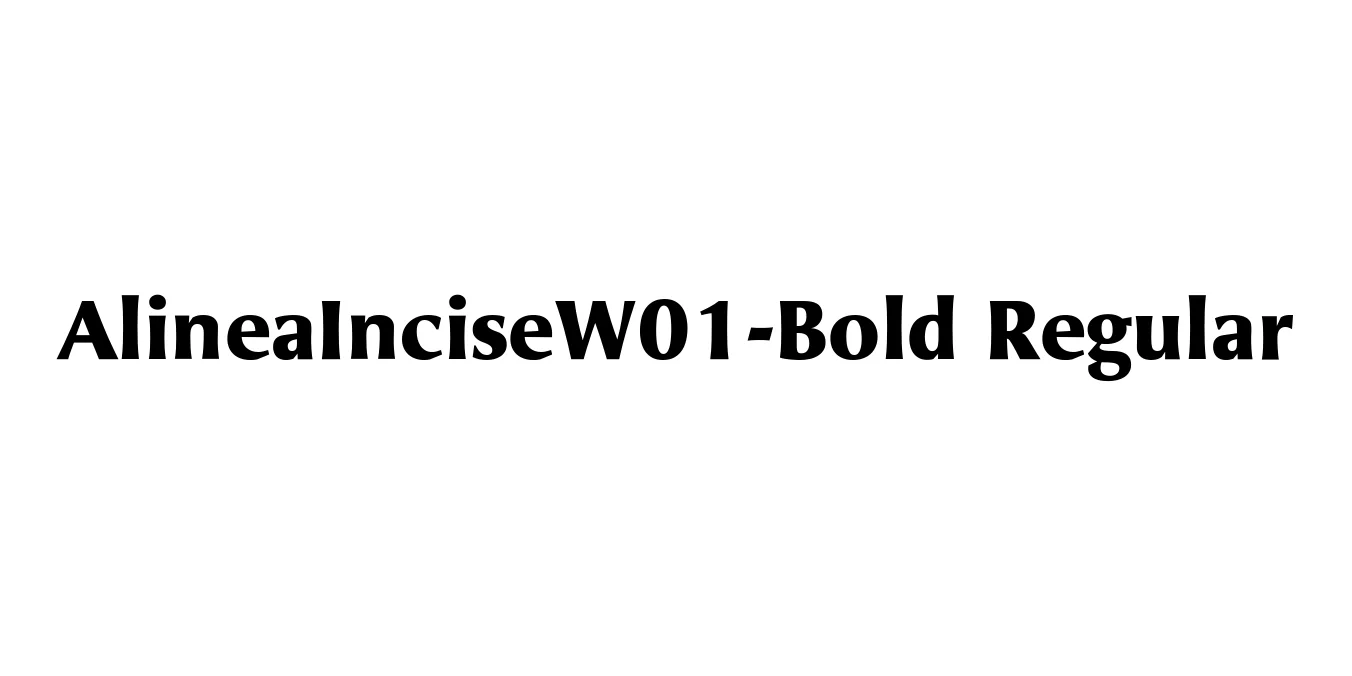
AlineaInciseW01-Bold Regular
Designed by Benoît Bodhuin
| Category | Incised / Glyphic Sans Serif |
| Designer | Benoît Bodhuin |
AlineaInciseW01-Bold Regular is a sophisticated and structural typeface designed by the renowned French typographer Benoît Bodhuin. As part of the extensive Alinea super-family, the Incise version represents a contemporary evolution of lapidary and stone-carved letterforms. This bold weight emphasizes the characteristic flared terminals and subtly tapered strokes that define the glyphic genre, blending the organic feel of classical inscriptions with the sharp precision of modern digital design.
The Alinea Incise series stands out for its unique personality, offering a bridge between humanist sans-serifs and traditional serif faces. Because of its high-contrast junctions and architectural foundations, the Bold weight is particularly effective for display purposes where clarity and elegance are equally paramount. It serves as a versatile tool for designers looking to inject a sense of timeless craftsmanship into modern editorial, branding, and environmental graphics projects.
AlineaInciseW01-Bold Regular Best Uses
Perfect for high-end corporate identities and luxury fashion logos.
Highly effective for impactful headlines and sophisticated pull-quotes in magazines.
Offers excellent legibility and a prestigious look for museum or gallery wayfinding.
Adds a premium, artisanal quality to product labels and luxury box designs.